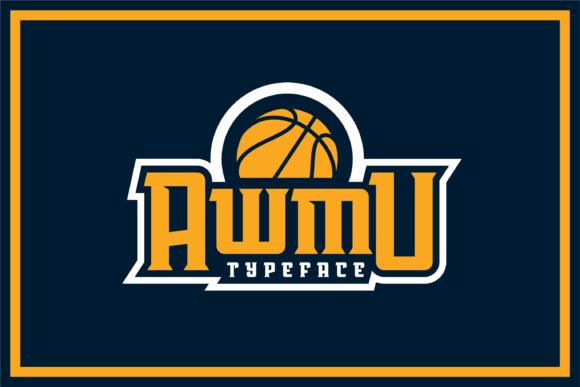
Journey into the realm of laughter and wit with Awmu Font, the ultimate font for humorous T-shirt designs. This extraordinary display font captivates with its quirky charm and playful personality, ready to add a dash of humor to your creative endeavors.
Clad in a collection of quirky characters, Awmu Font beckons you to explore the whimsical world of laughter. Its playful curves and sharp edges dance together, evoking a symphony of smiles and chuckles. Unleash your imagination and let Awmu Font guide you on a delightful adventure through the realm of humor.
With Awmu Font as your trusted companion, transform ordinary T-shirt designs into side-splitting masterpieces. Its meticulously designed characters exude a light-heartedly whimsical charm, sure to ignite laughter and elevate spirits. Picture your designs adorned with Awmu Font's playful dance of letters, captivating audiences with their comedic flair.
Delve into the infinite possibilities of Awmu Font's versatility. Its adaptable nature effortlessly complements a myriad of designs, ranging from playful illustrations to quirky typography. Create eye-catching posters that demand attention, design invitations that spark joy, and craft digital content that radiates humor. Awmu Font is your versatile weapon in the battle against dullness.
Embrace the creative freedom that Awmu Font offers. Allow your imagination to soar as you craft designs that resonate with your audience, leaving an indelible mark on their minds. Awmu Font is more than just a font; it's a gateway to a world overflowing with laughter, joy, and light-heated adventures.